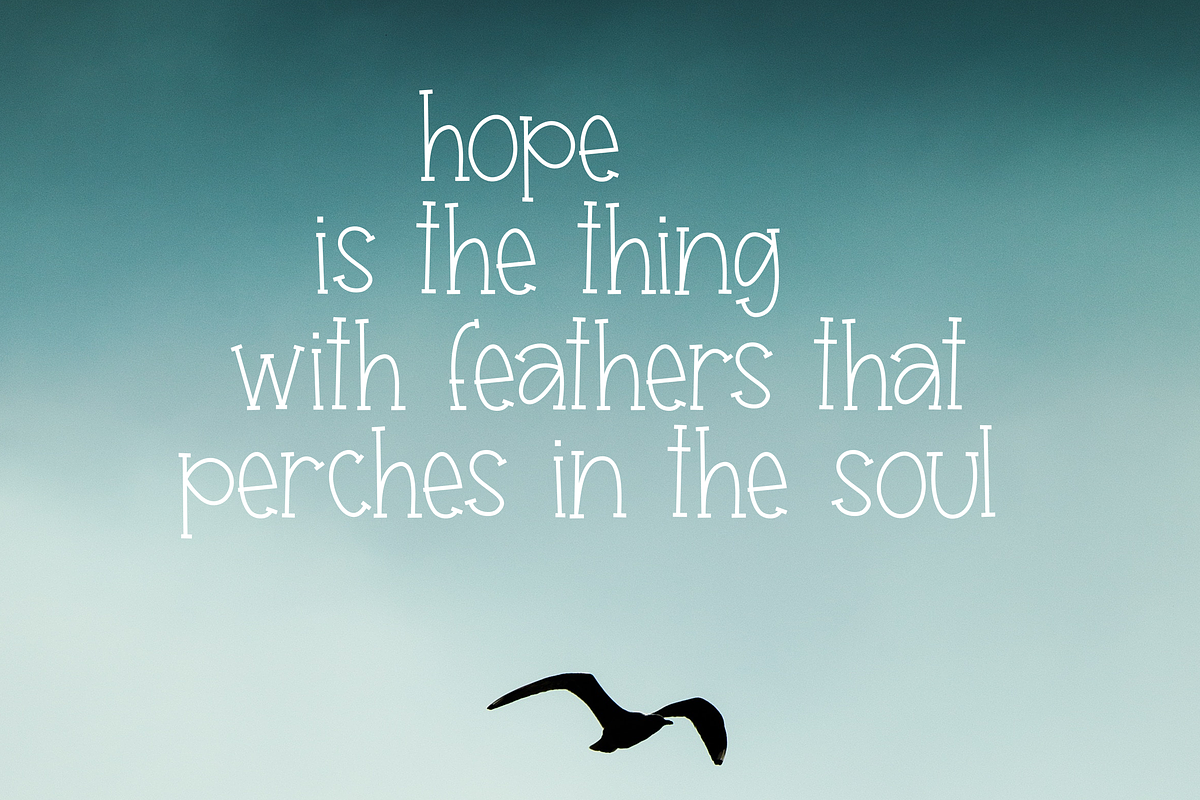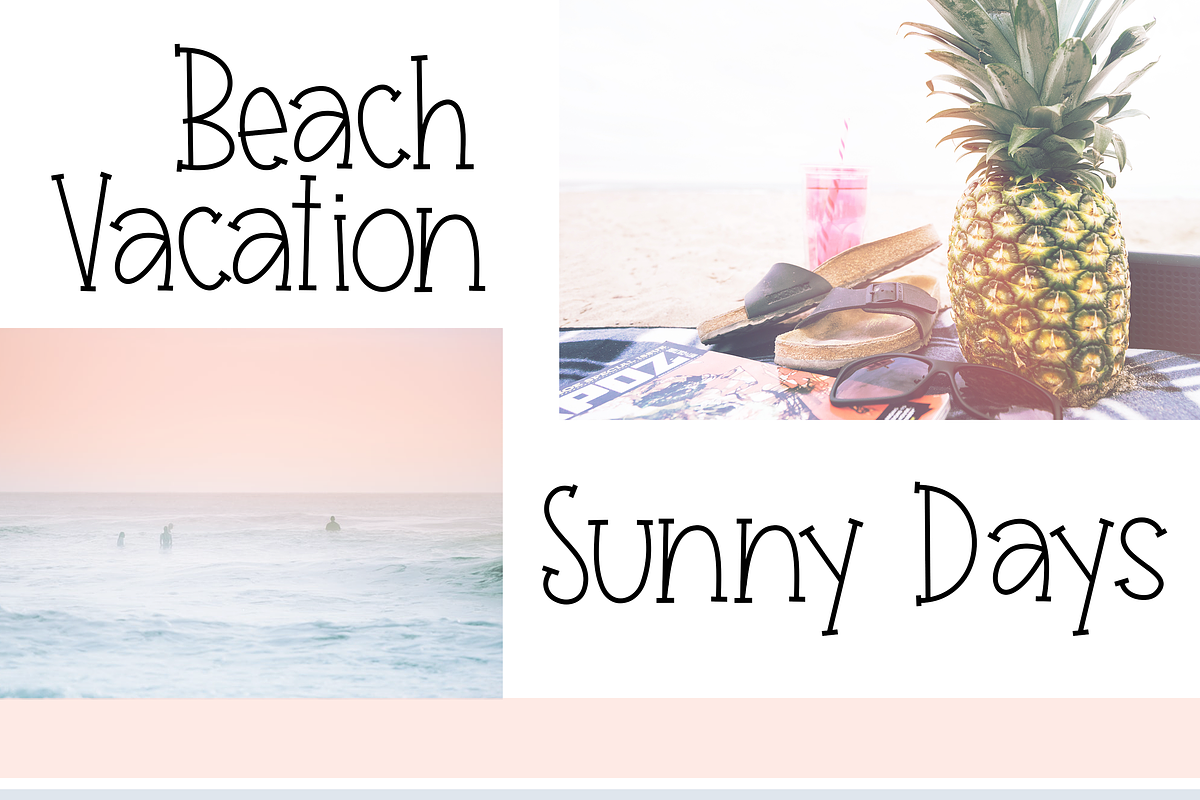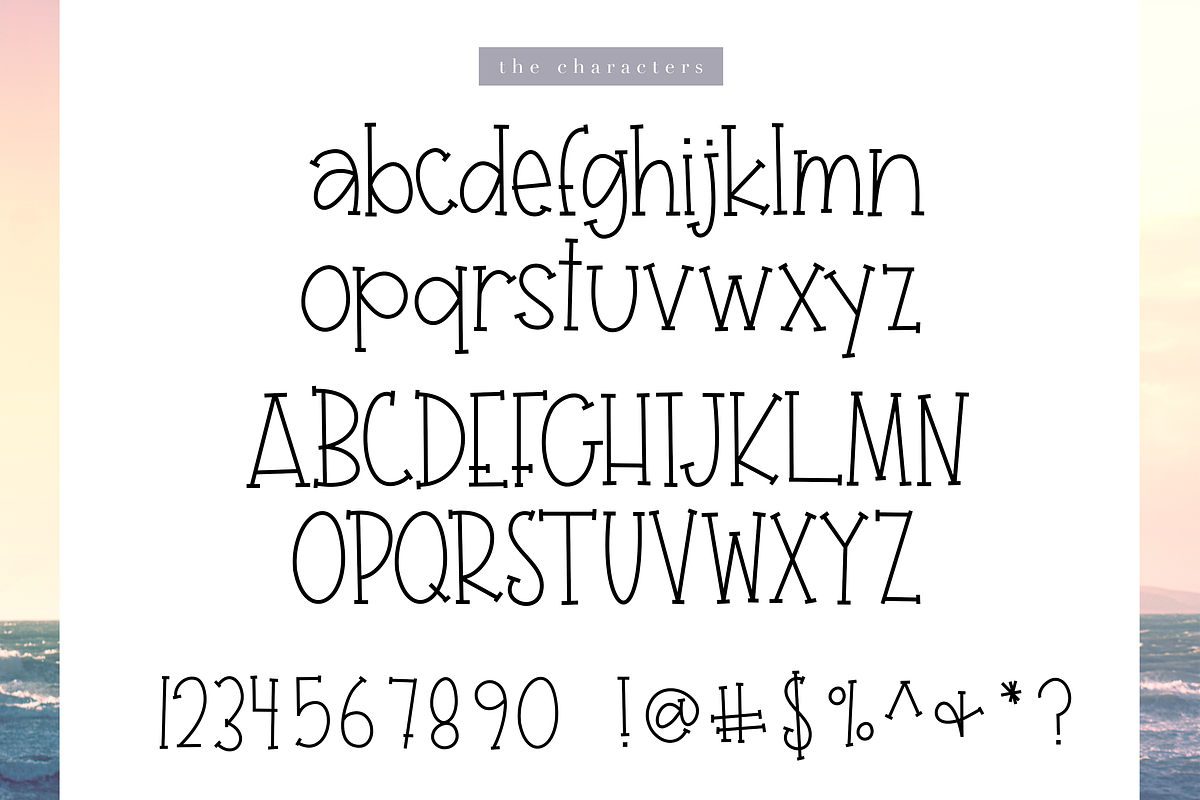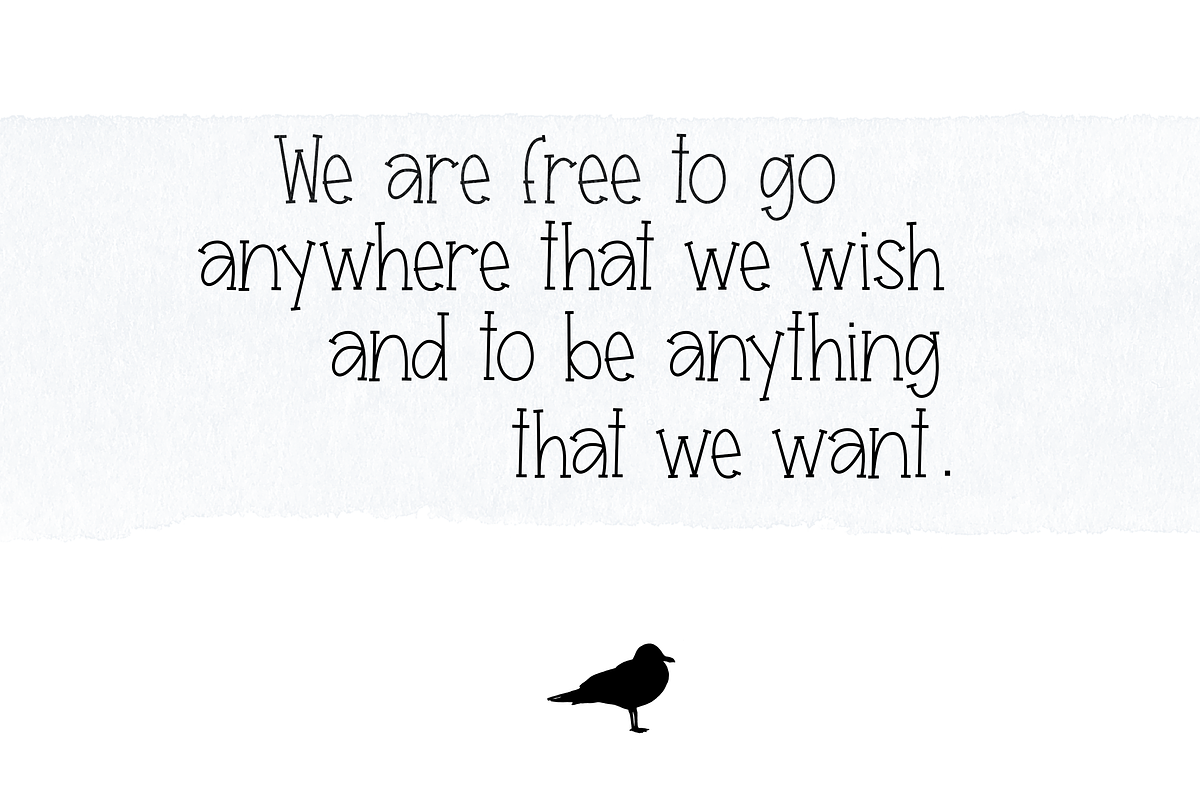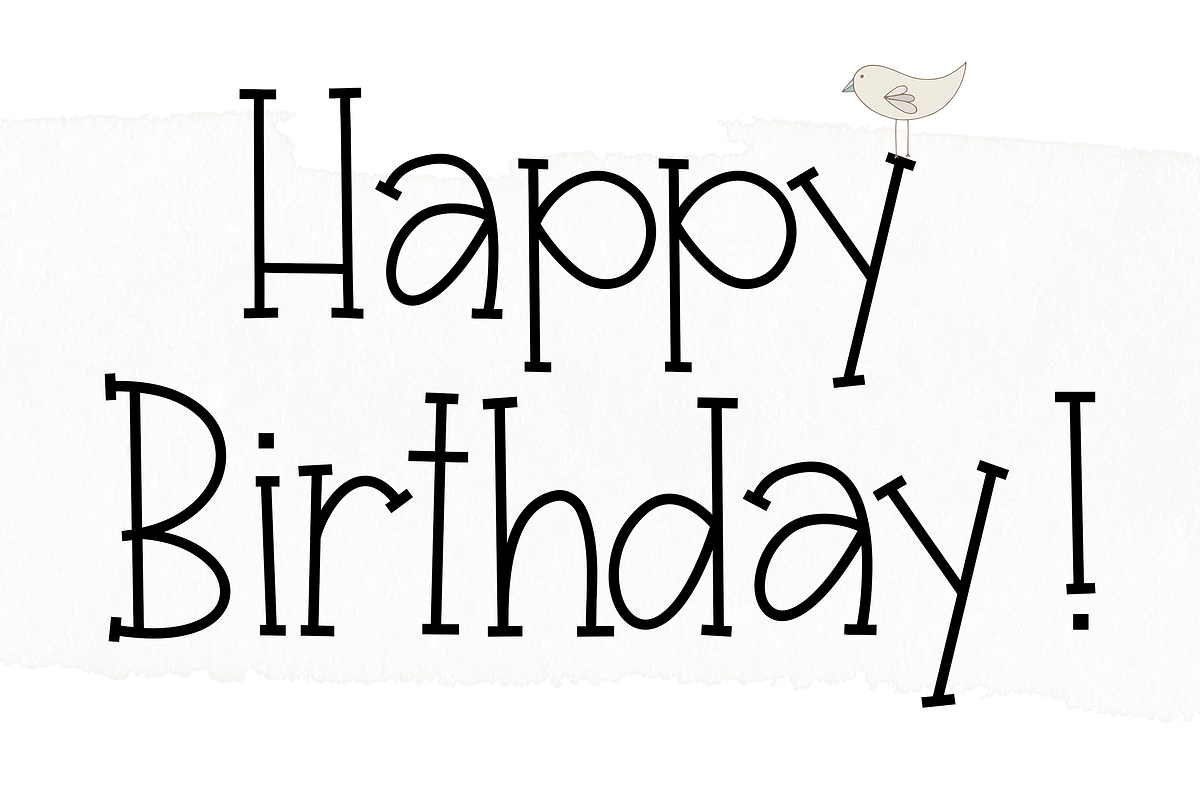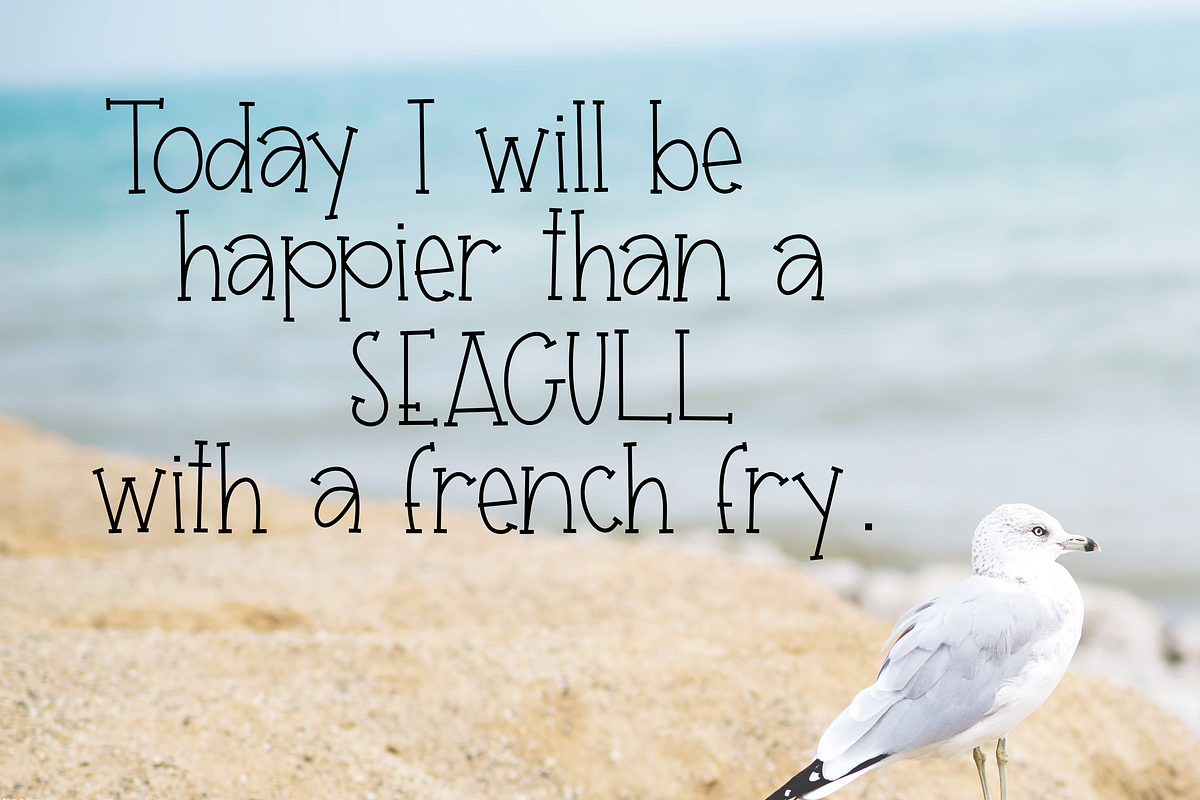
Seagull - A Handwritten Font
Seagull is a fun serif font with a quirky design. This font is perfect for quotes, headings, blogs, logos, invitations and more!
Seagull - A Handwritten Font by KA Designs fits naturally into Branding, posters, packaging, typography.